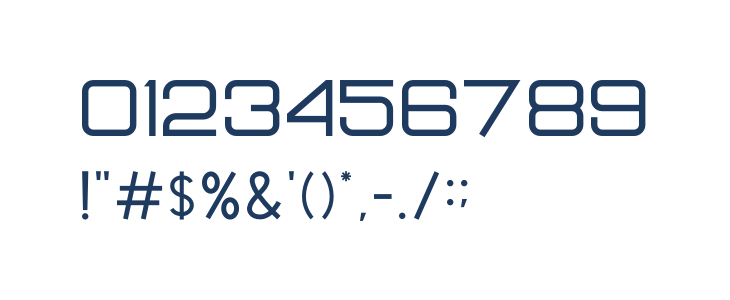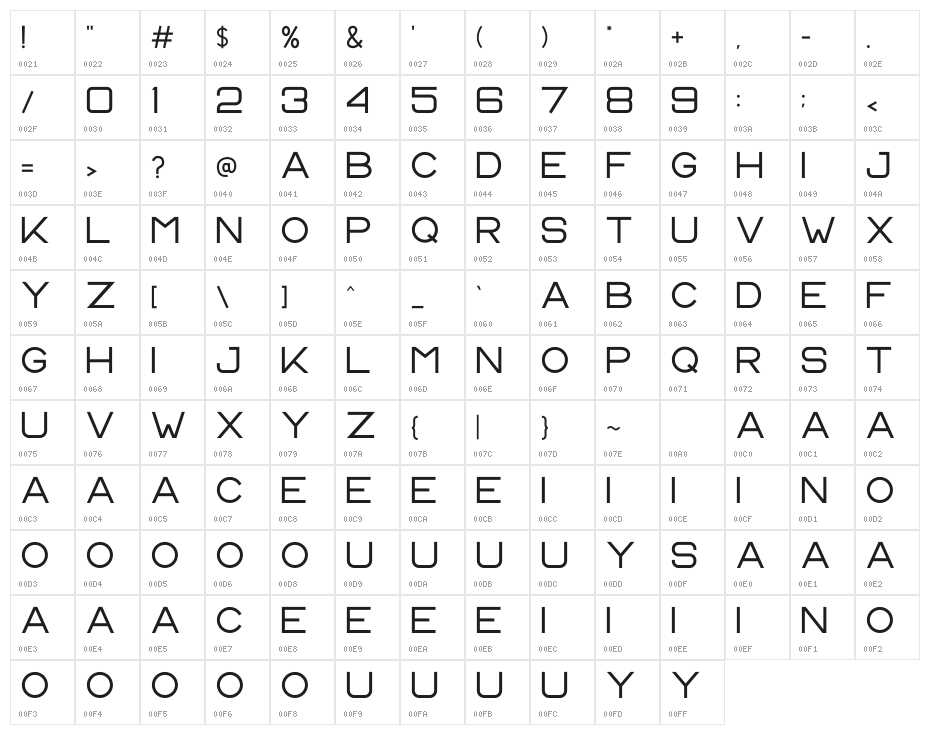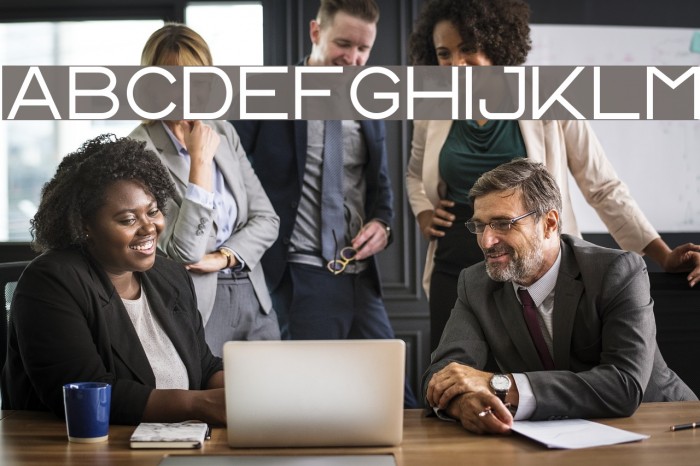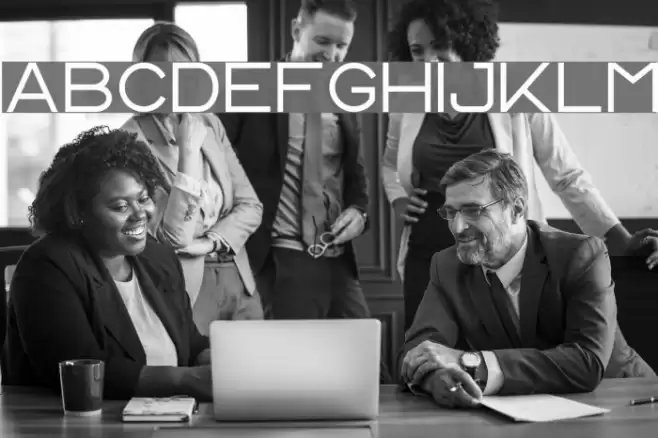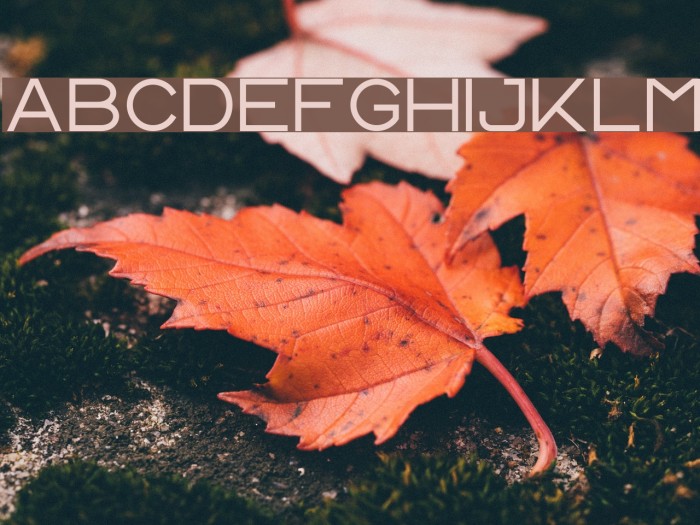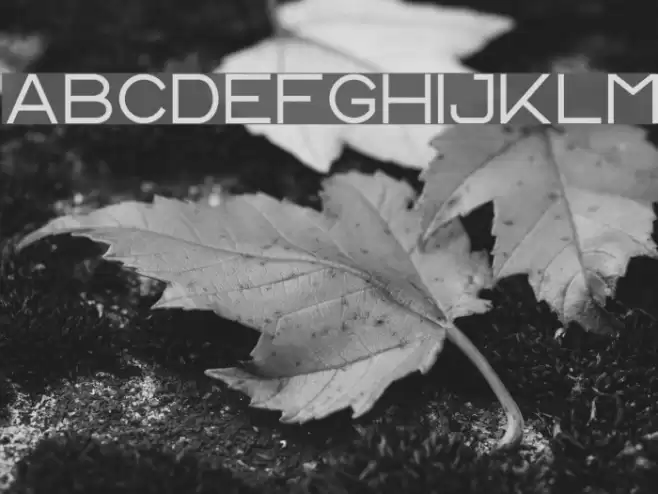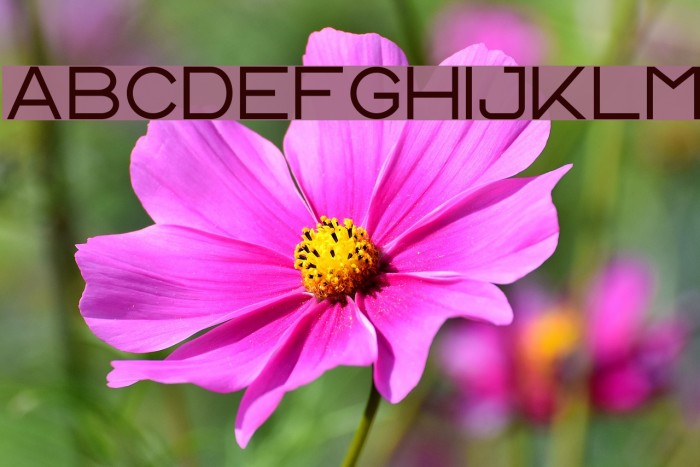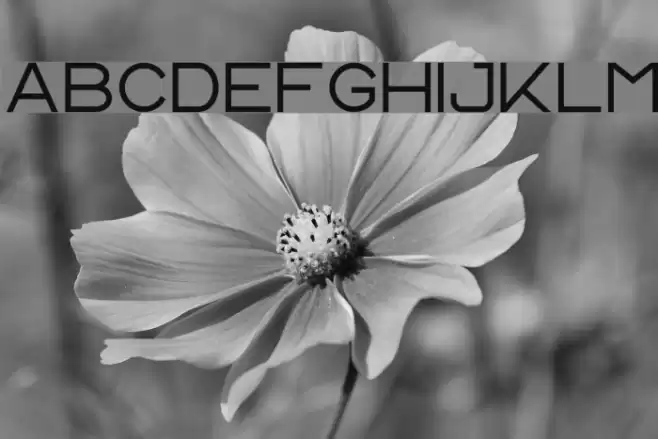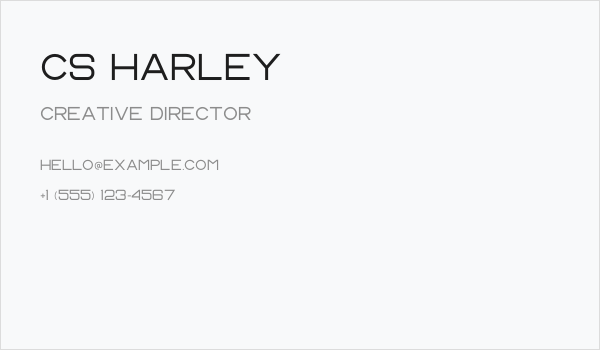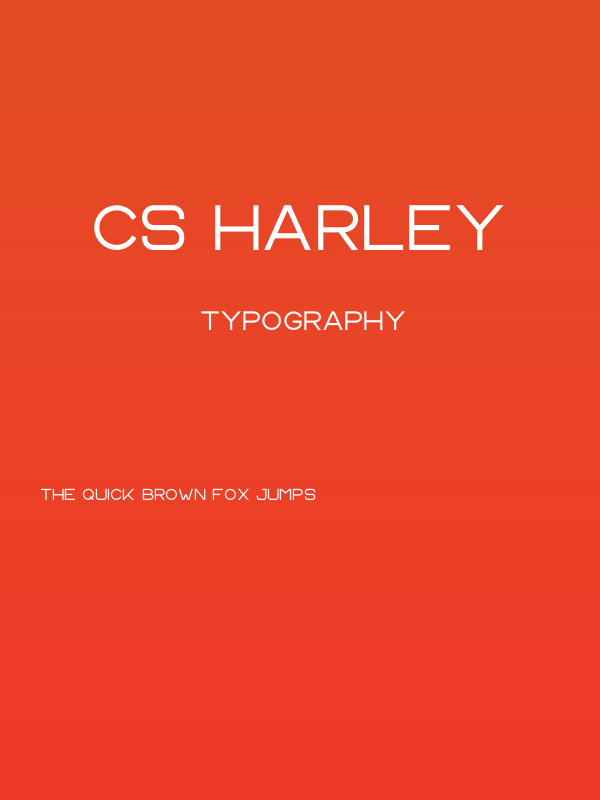
CS Harley Font
CS Harley Description
This font features a modern and sleek design with a geometric structure. The characters are crafted with clean lines and a uniform stroke width, giving it a contemporary and minimalist appearance. The uppercase and lowercase letters maintain a consistent height, while the numerals and special characters are designed to complement the overall style. The font's simplicity and clarity make it highly legible, suitable for various design applications. Its balanced proportions and open forms contribute to its versatility, making it an excellent choice for both digital and print media.
| Proposed Projects | Ideal for branding, advertising, web design, and editorial layouts. |